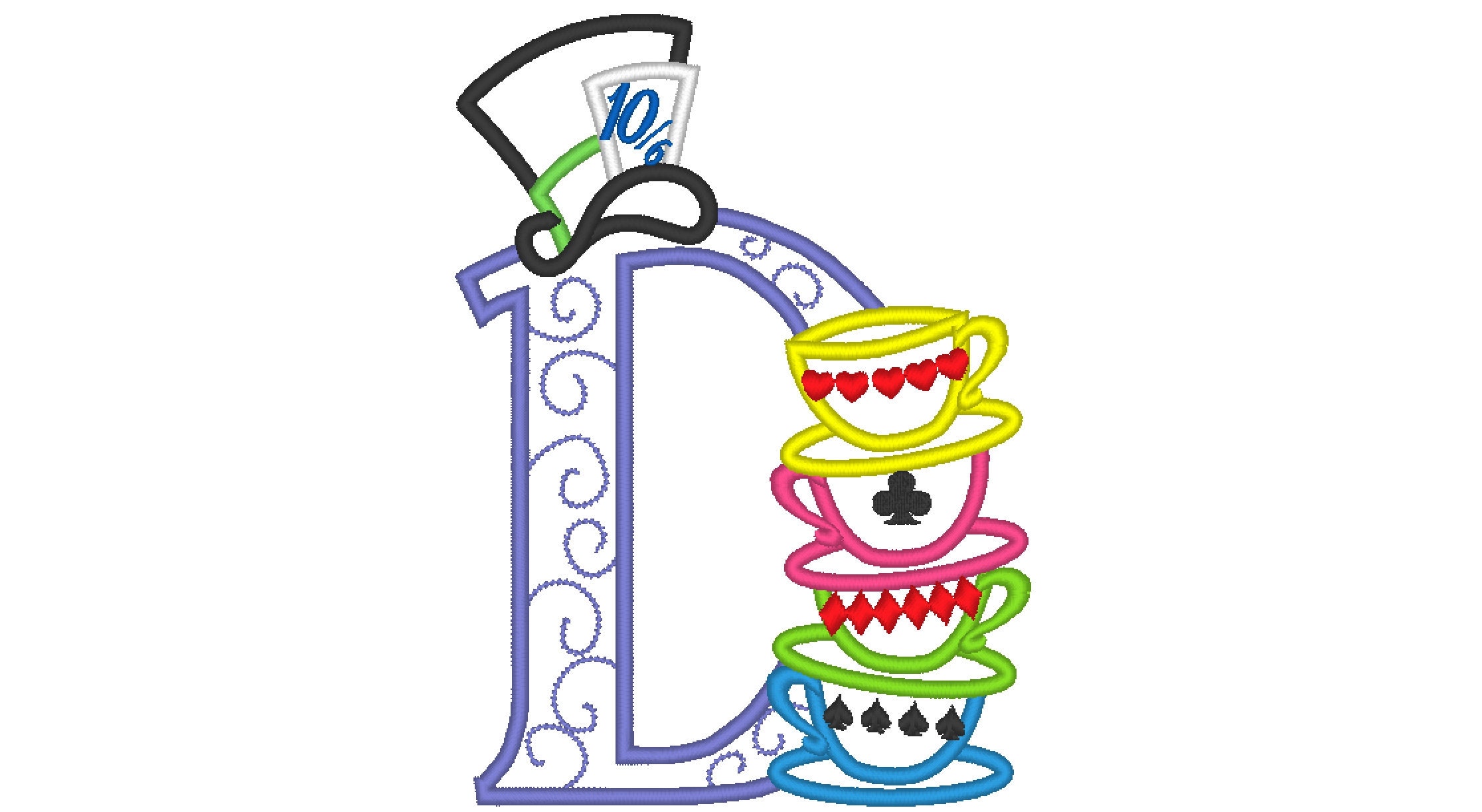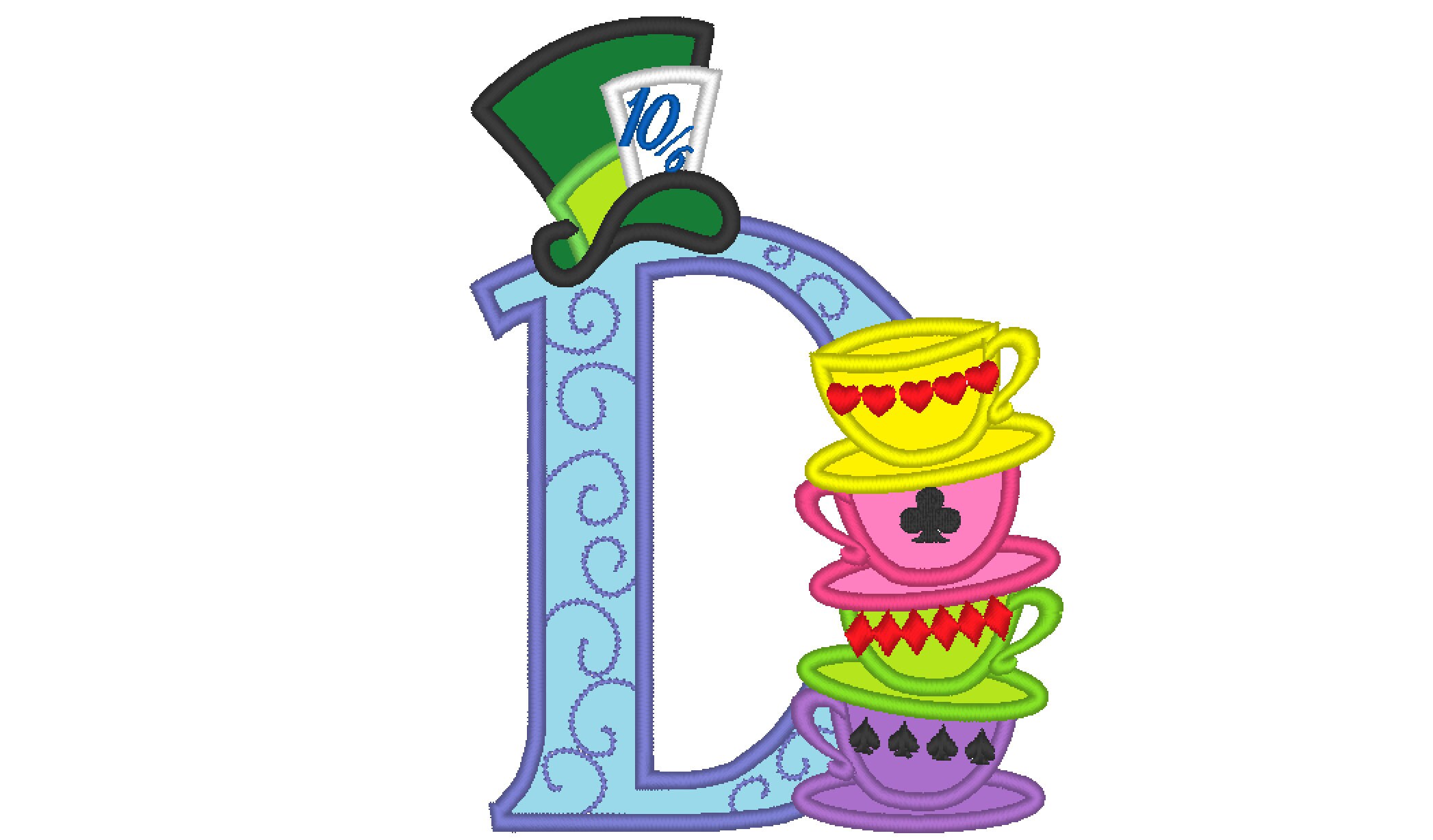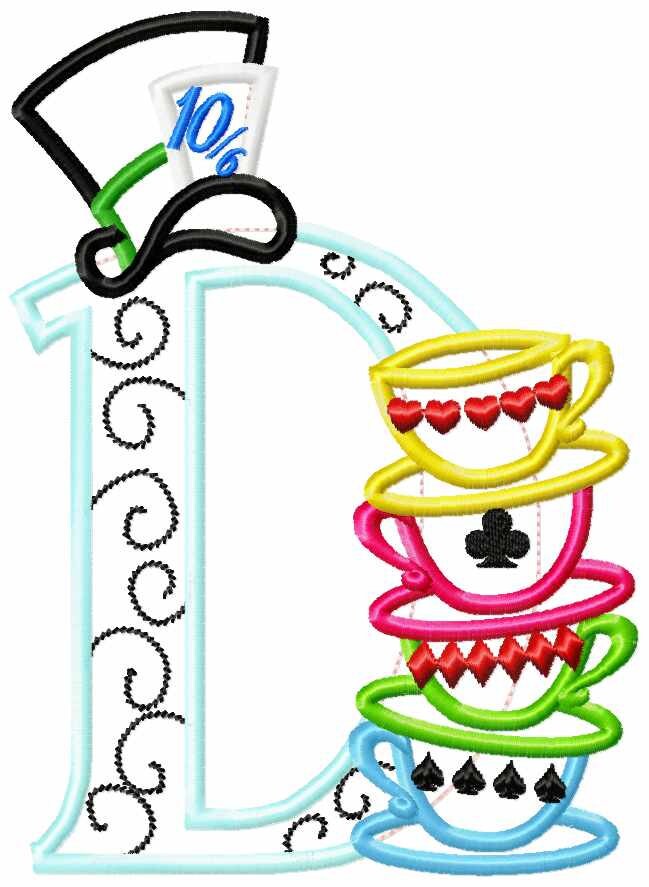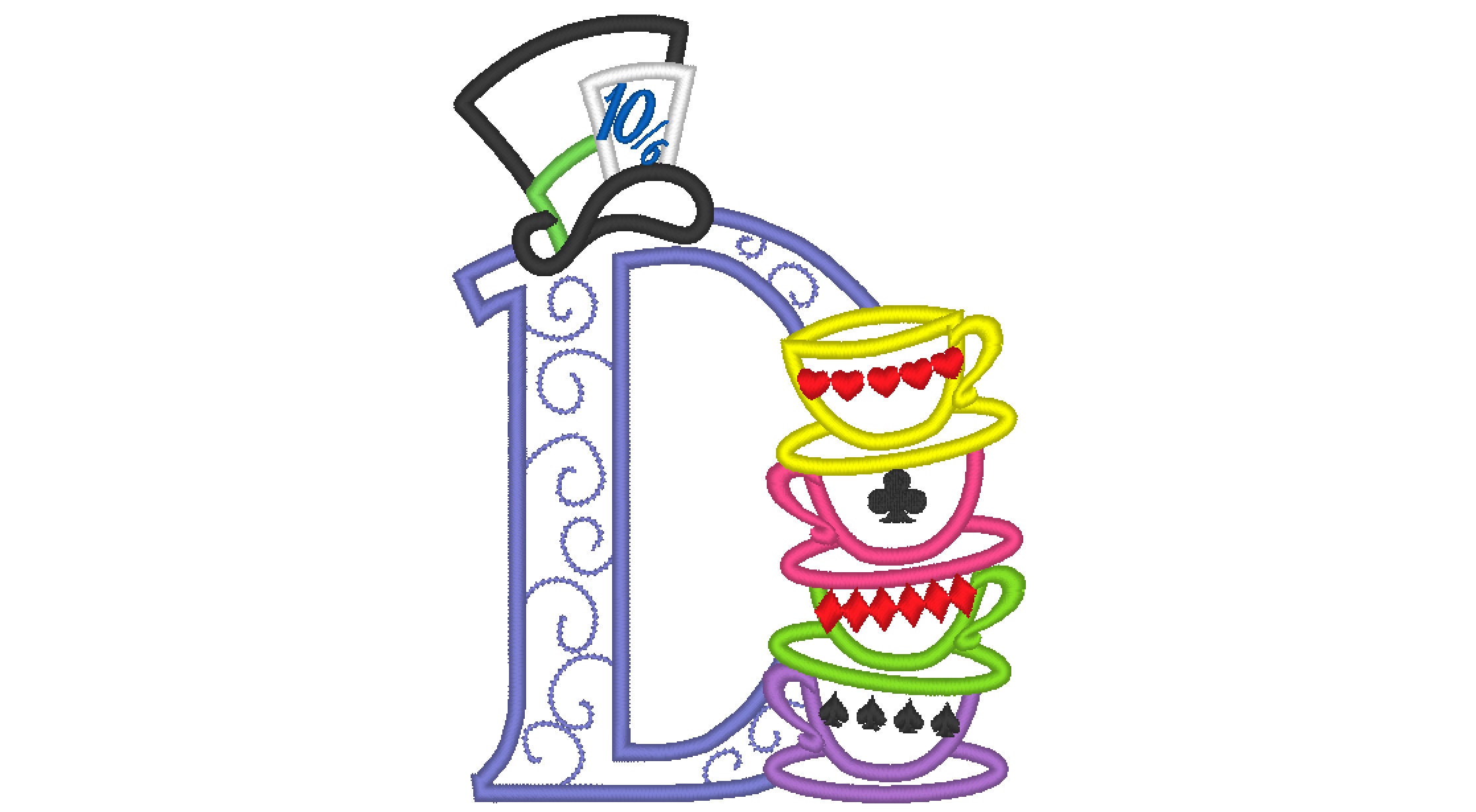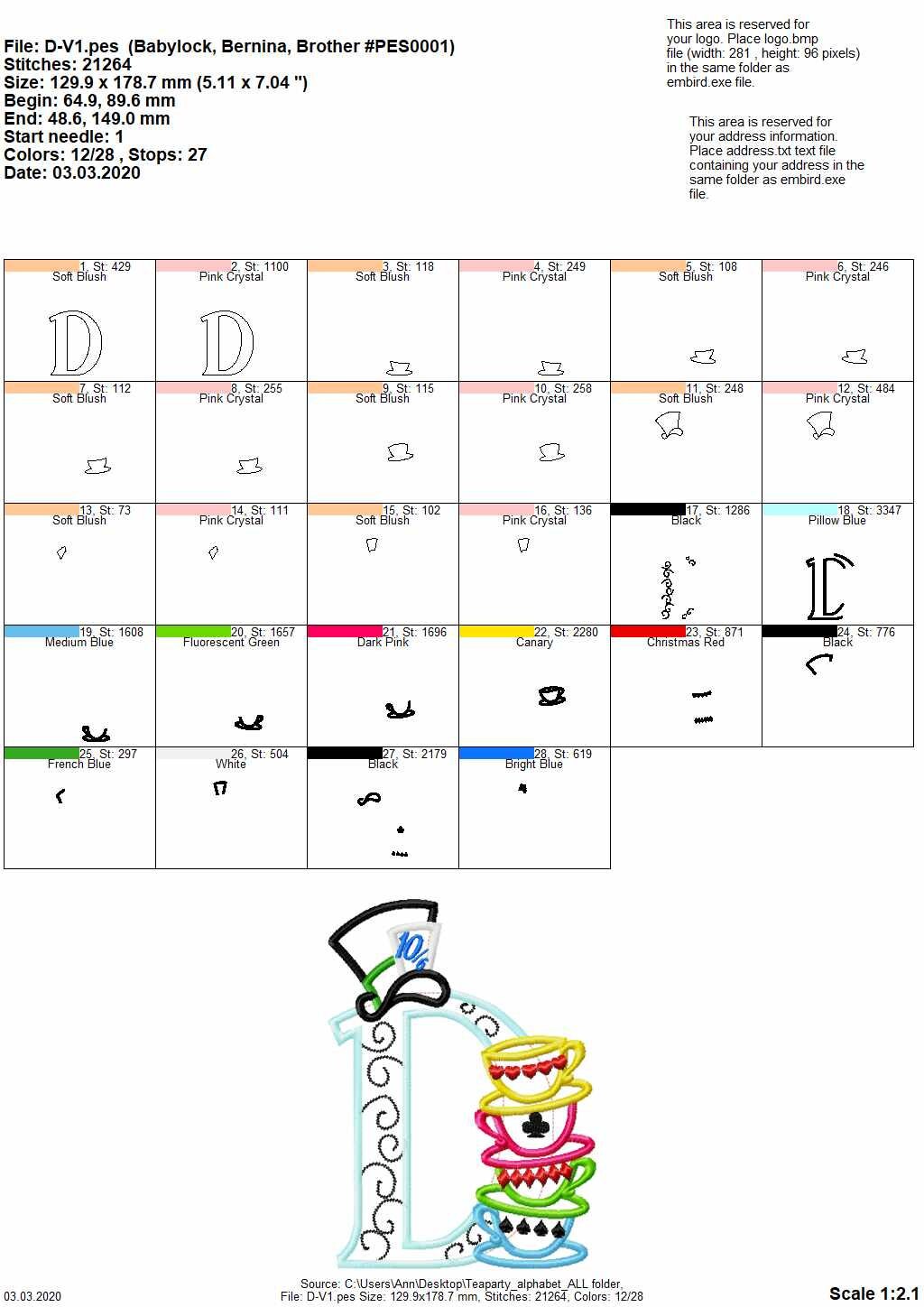
Mad Hatter Alice in Wonderland tea party stack of teacups monogram letter D Birthday party applique alphabet machine embroidery designs
Only one letter D